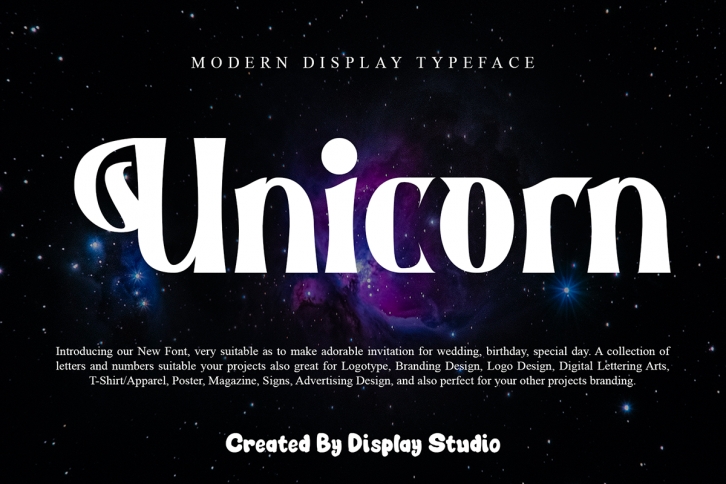
Unicorn is a bold, cool and charming looking display font. Add it confidently to your projects, and you will love the results. A little bit quirky, this font looks incredibly adept on a wide variety of contexts!